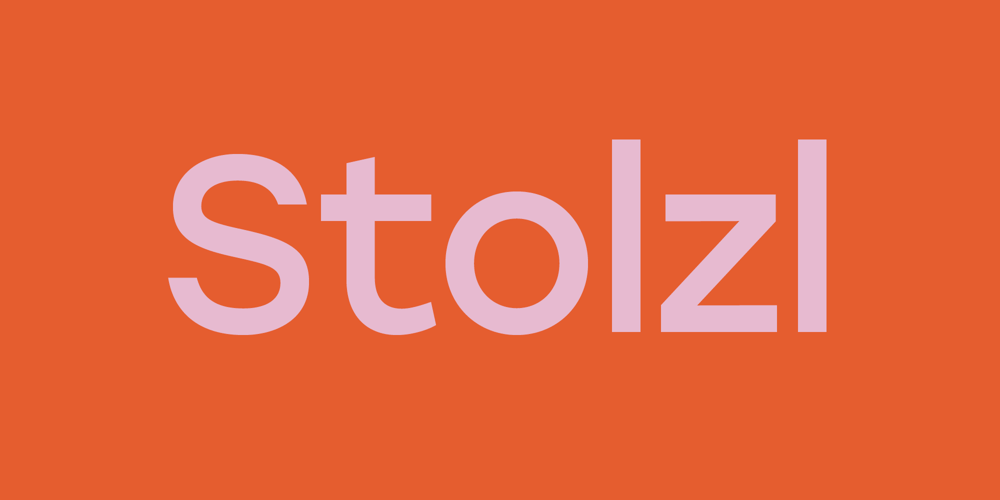
Stolzl Font Family was designed by Mariya Lish and published by Inhouse Type. Stolzl contains 6 styles and family package options. Stolzl is the text companion of the display family, Stolzl Display, which was optically tailored to perform as a functional addition to this concept steered font collection. Stolzl Text is a modernist interpretation of the first release, stripped of the primary stylised attributes, it is highly readable in print and on screen. Designed to perform at various sizes, Stolzl Text is a great addition to the type collection.